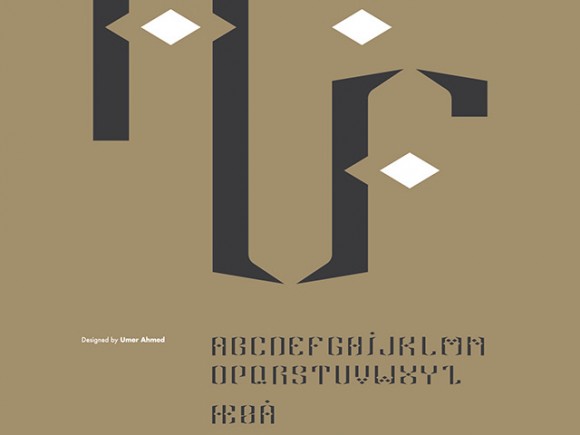
Free Alif Font
Featuring the adorable free alif font. This font file was found from the amazing source called The Hungry JPEG. Amaze your fellow designers and create stunning designs with this fancy font.